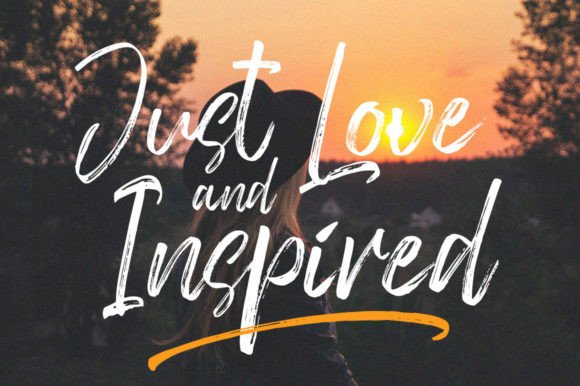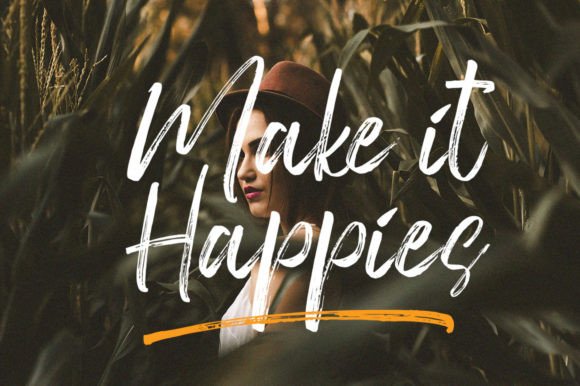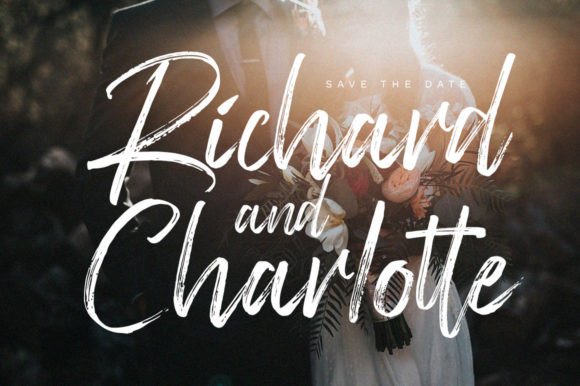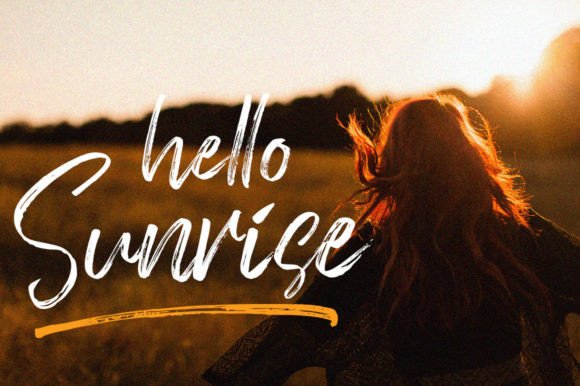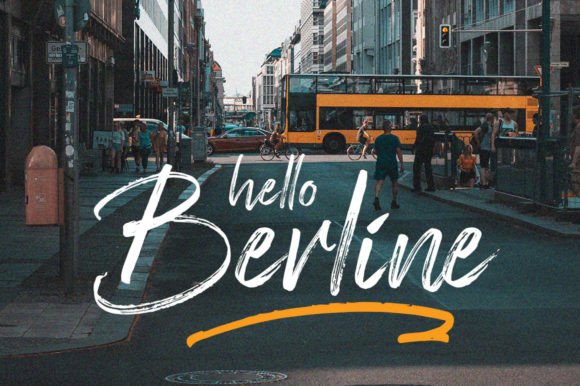
The Fregiselle Font: A Handwritten Brush Script to Elevate Your Designs
Have you ever been working on a project, pouring your heart and soul into it, only to get stuck on one tiny detail – the font? I know I have! It was for a client’s greeting card project, and I just couldn’t find the right fit. That’s when I stumbled upon the Fregiselle font, and it was love at first sight! 💕
This handwritten brush script font looks and feels like it was written on a marker board, making it perfect for greeting cards, invitations, and motivational quotes. In this article, we’ll dive into the world of Fregiselle, exploring its features, how to use it, and some similar fonts you might love.
An Honest Review of Fregiselle
What I Love About Fregiselle ✨
• 💖 The personal touch: Fregiselle has a unique, hand-crafted feel that adds a touch of warmth to any design.
• ✅ Versatility: This font is perfect for a wide range of projects, from greeting cards to social media graphics.
• 🎨 Expressive: The font’s marker board-inspired look makes it ideal for creating eye-catching, motivational quotes.
• 🤝 Easy to read: Despite its handwritten nature, Fregiselle is surprisingly easy to read, even in smaller sizes.
While Fregiselle is an amazing font, it’s not without its quirks. For example:
• 🤔 Some letters may appear a bit inconsistent in size or spacing, which can be a minor issue for certain design applications.
• ⚠️ The font might not be the best choice for very formal or professional projects, as it has a distinctly casual feel.
The Story Behind Fregiselle
Fregiselle was inspired by the classic marker board look, with its imperfect lines and hand-crafted feel. The font’s creator aimed to capture the essence of handwritten messages, making it perfect for personal, heartfelt designs. Whether you’re a designer, crafter, or hobbyist, Fregiselle is sure to become a favorite in your font collection.
Q: What type of projects is Fregiselle best suited for?
A: Fregiselle is perfect for greeting cards, invitations, motivational quotes, and any design that needs a personal, handwritten touch.